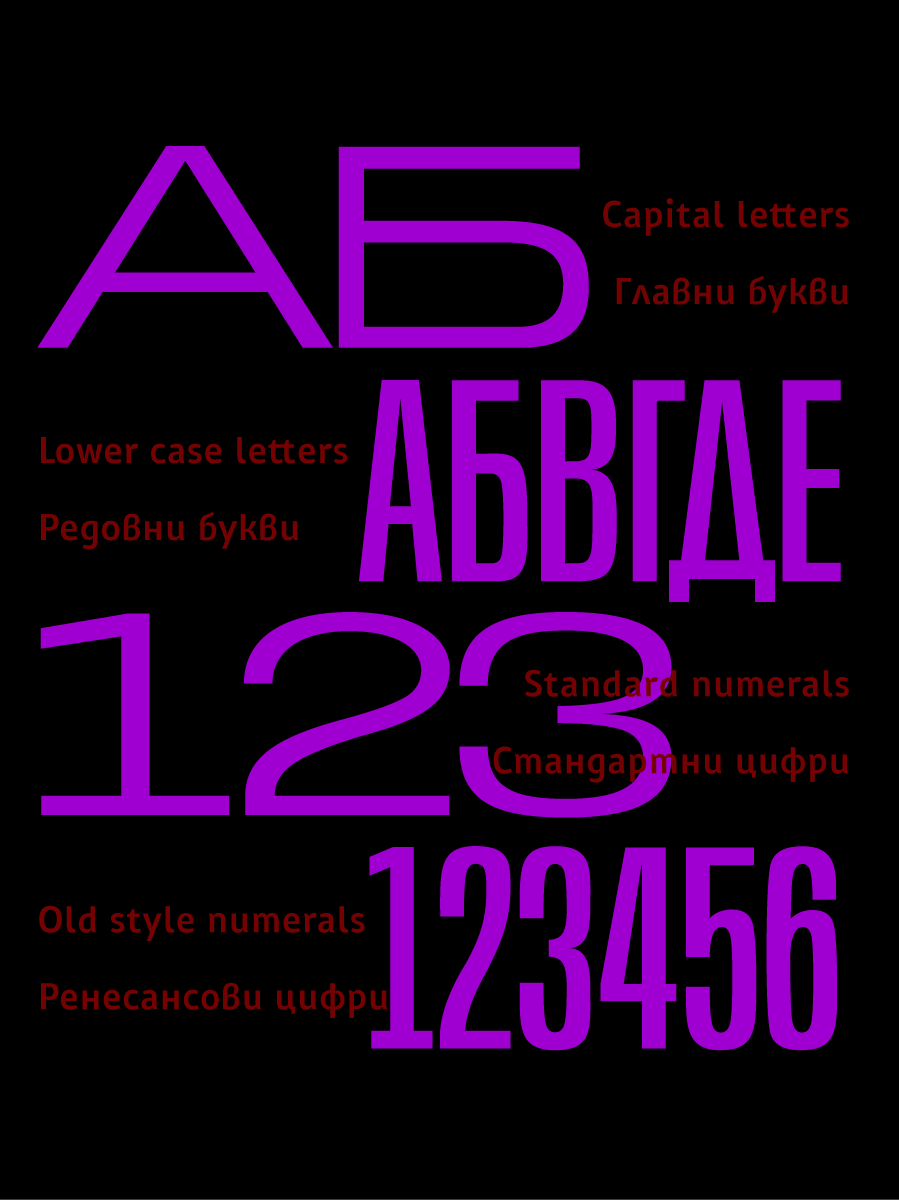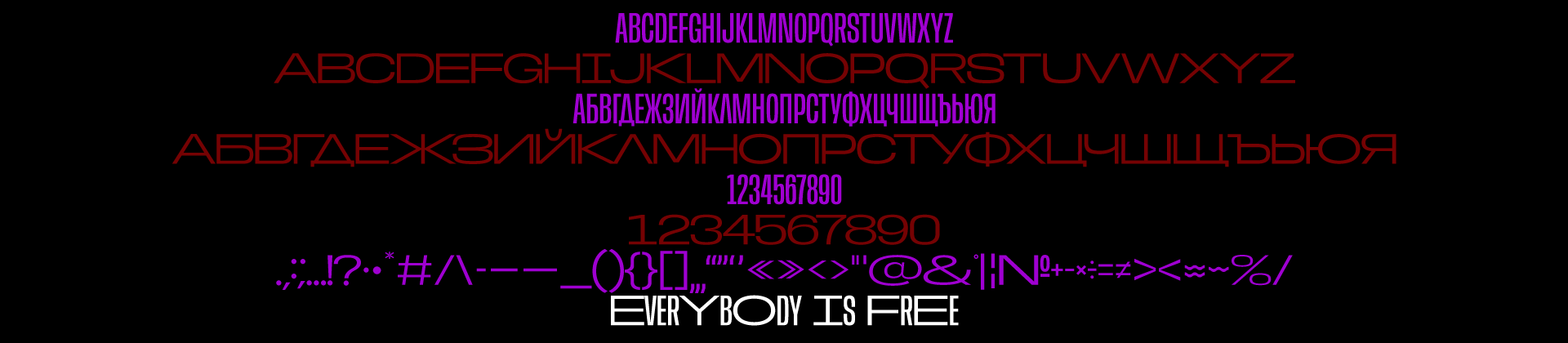
Everybody is free!
A font inspired by Veliko Tarnovo’s Varusha district – a place where the distant meets the near, the old embraces the new, and contrasts do not divide, but shape character. It became part of the visual identity of 48 hours Varusha South festival 2025 which was crafted in collaboration with Izabela Markova.
The typeface features a basic case including capital Latin & Cyrillic (BG) as well as numerals in ExtraNarrow and ExtraWide.
Instead of a variable font, Everybody was constructed the way it is so that non-designers could use it in simpler image-creation software.